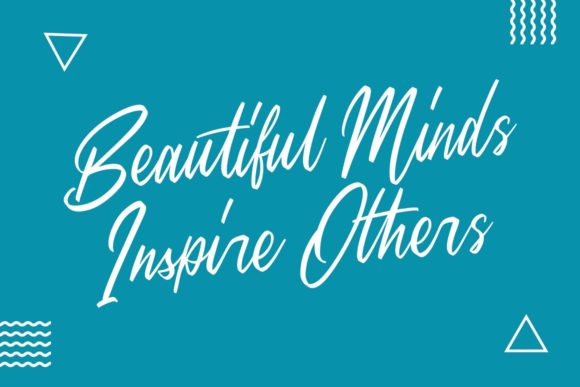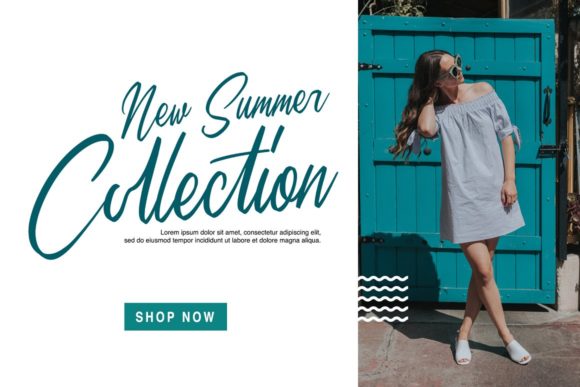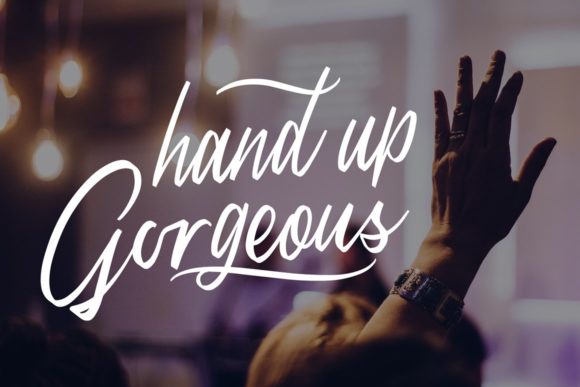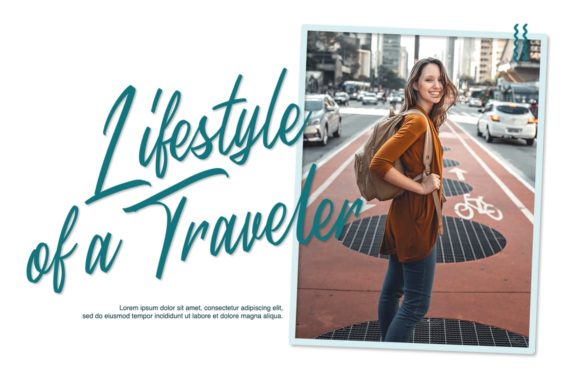
About Sweet Morning Font
Sweet Morning is a relaxed and flowing typeface. It looks lovely on wedding invitations, thank you cards, quotes, greeting cards, logos, business cards and every other design which needs a handwritten touch.